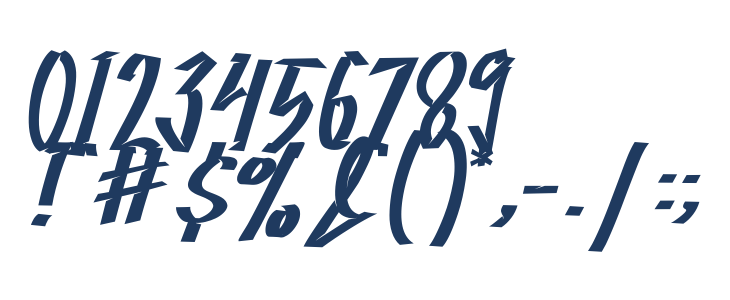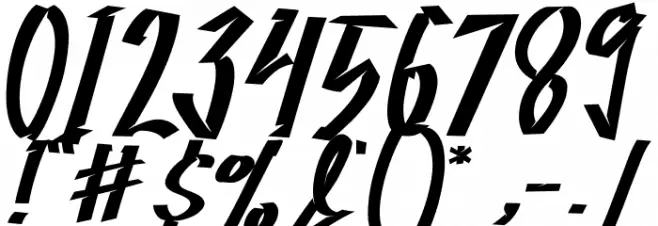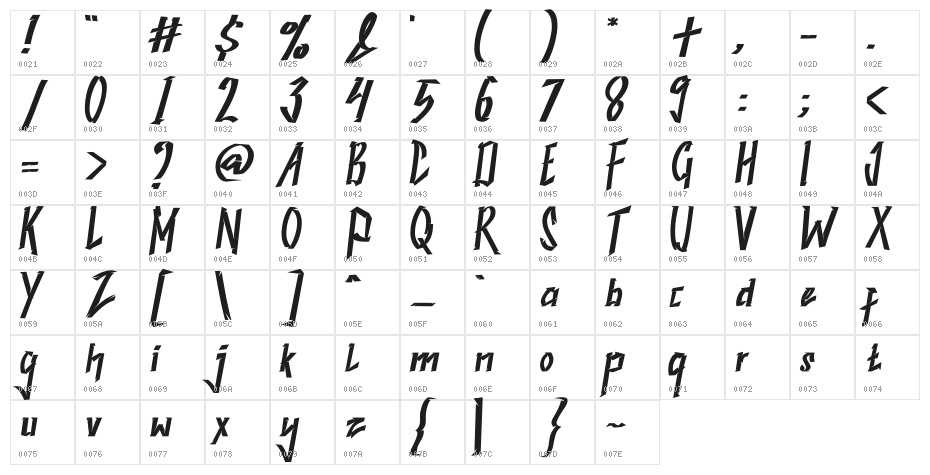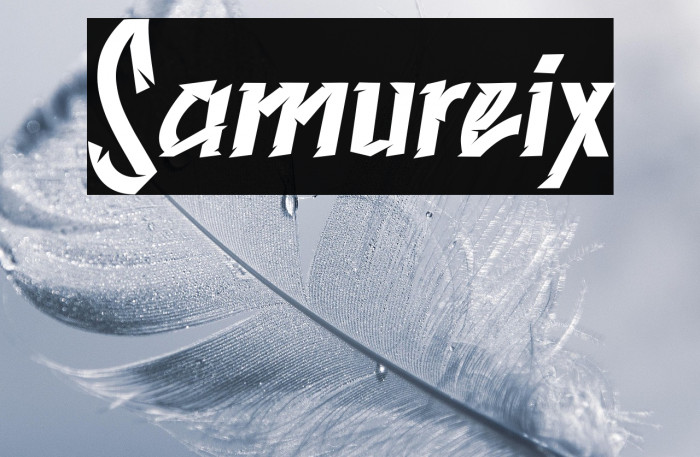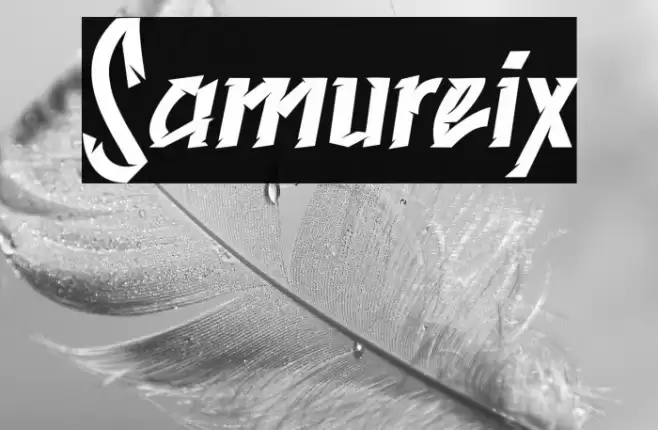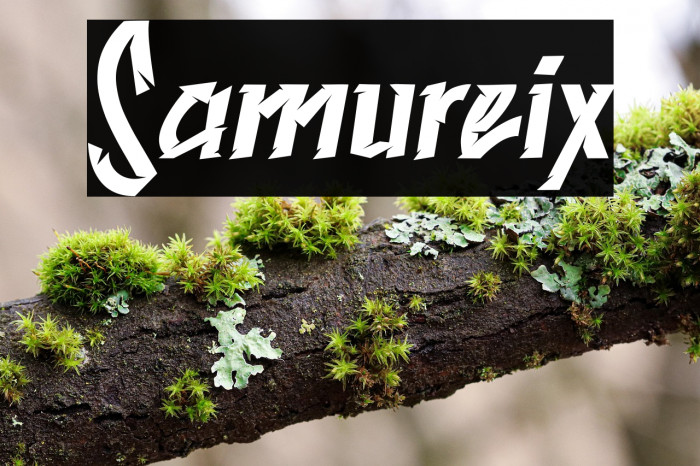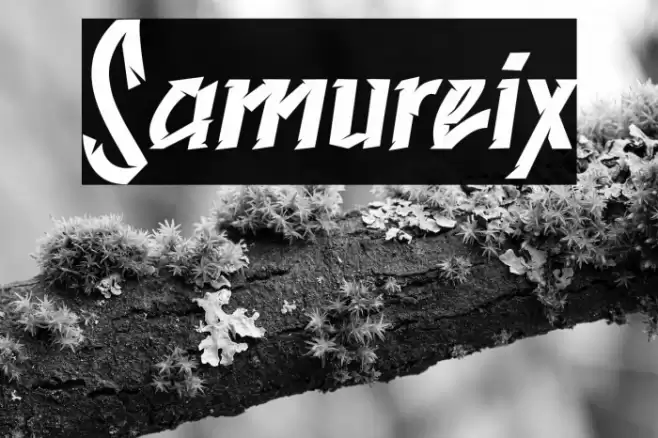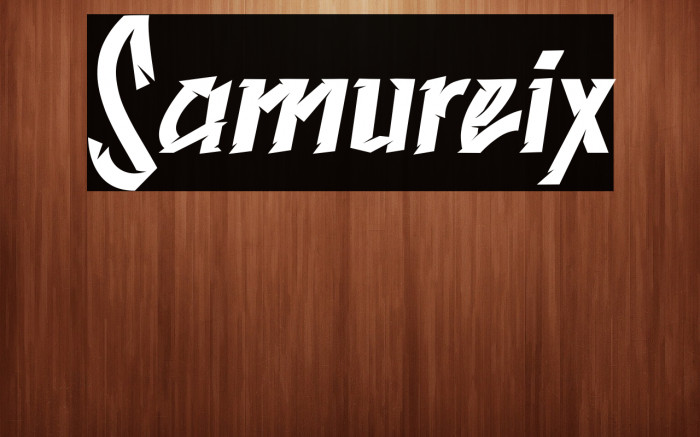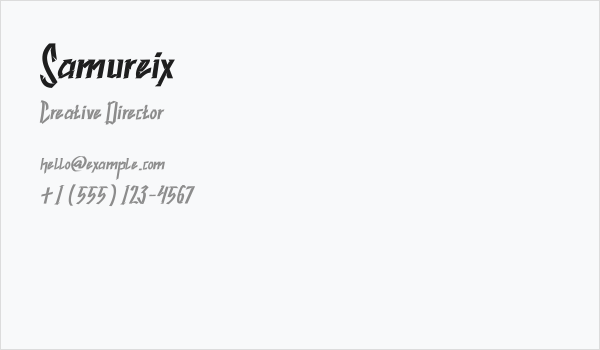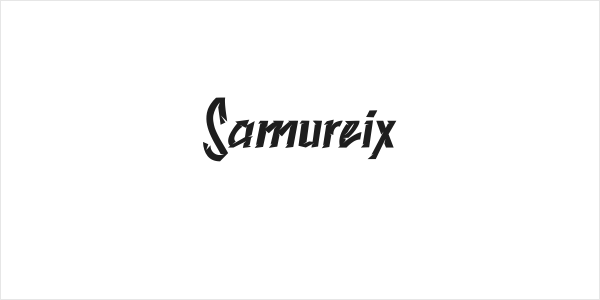
Samureix Font
Samureix Description
This font features a bold and dynamic style with sharp, angular lines and a distinct slant, giving it a sense of movement and energy. The uppercase letters are particularly striking, with exaggerated serifs and a strong presence. The lowercase letters maintain the same angular aesthetic, creating a cohesive look throughout. Numbers and special characters follow the same design principles, ensuring consistency. The overall appearance is both modern and edgy, making it suitable for projects that require a bold statement.
| Overall Style | Modern, Edgy |
| Proposed Projects | Ideal for branding, posters, album covers, and any design needing a bold, energetic look. |